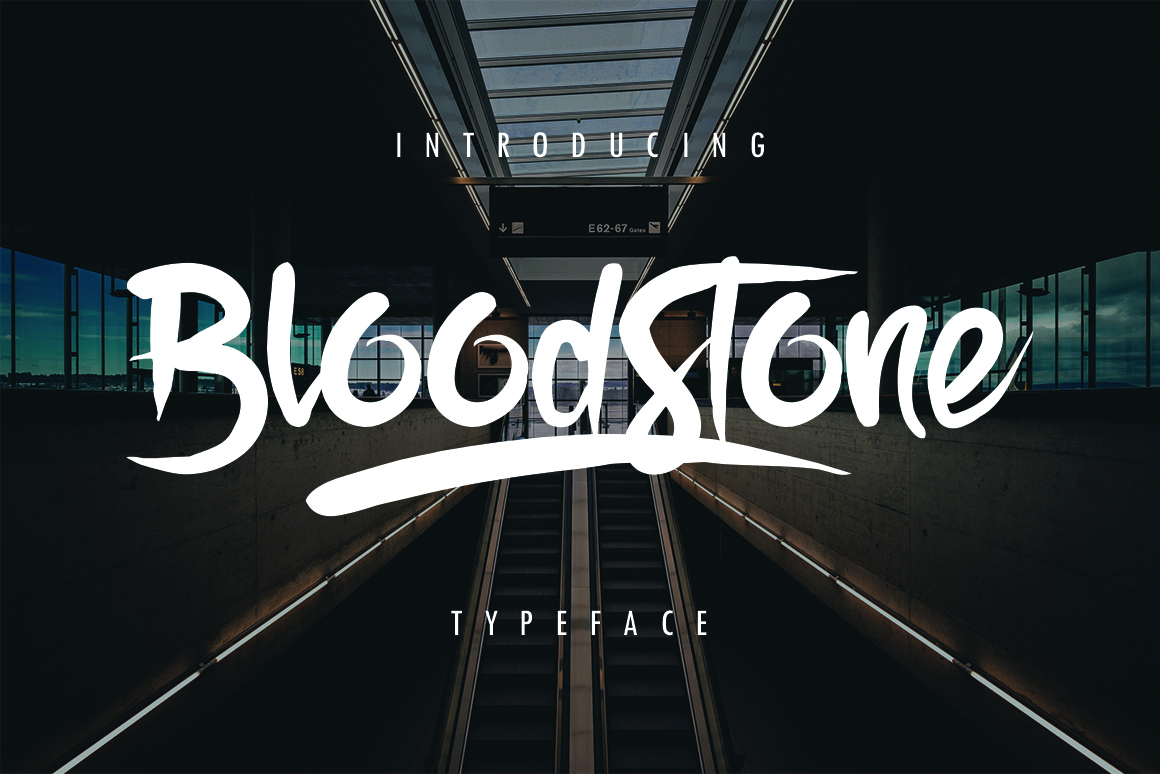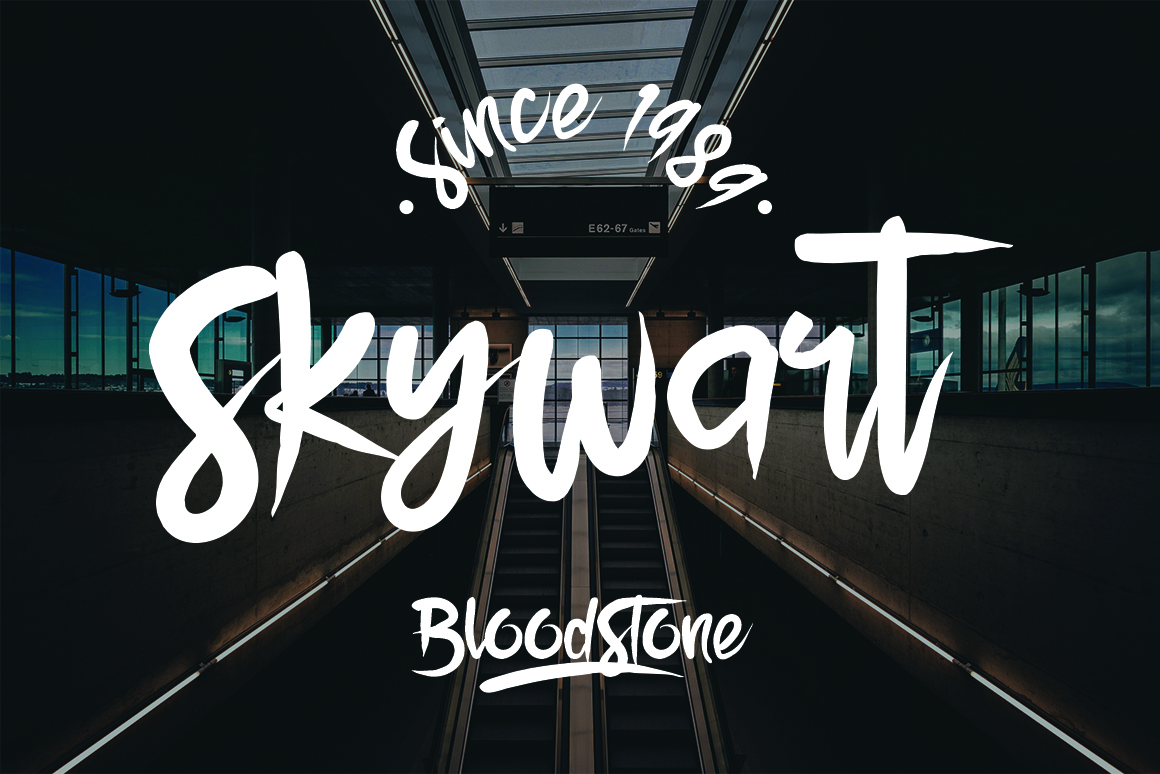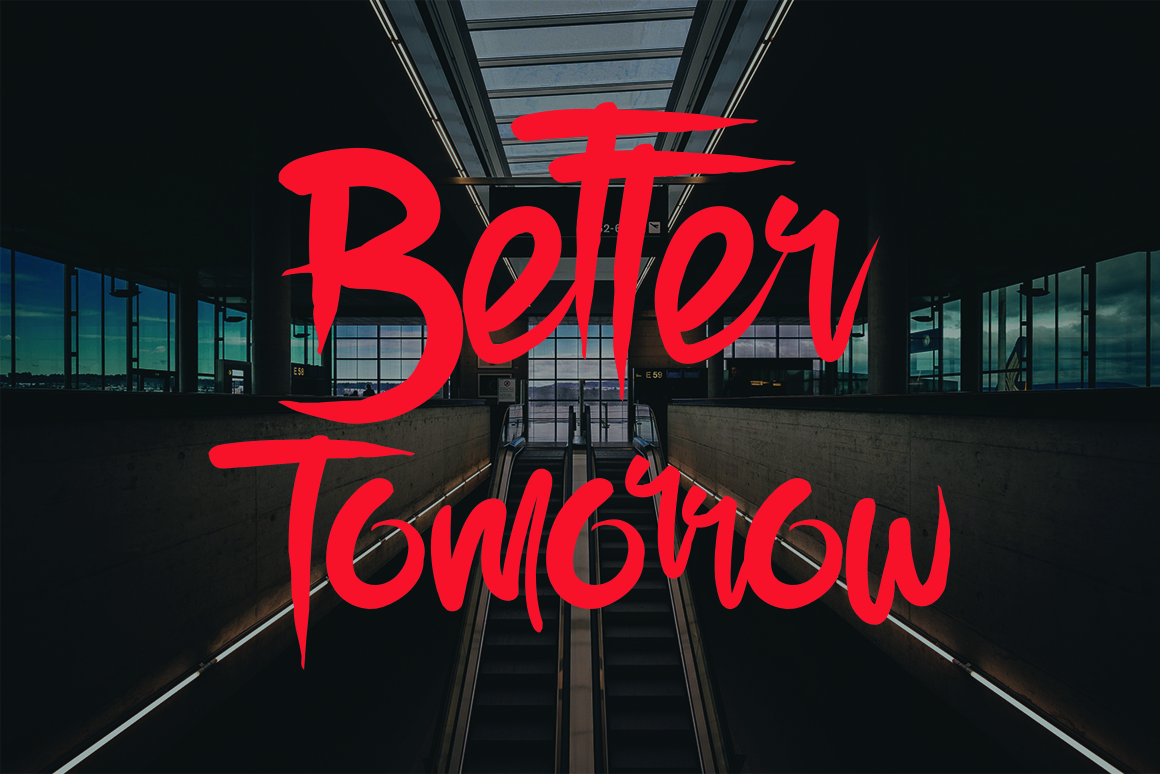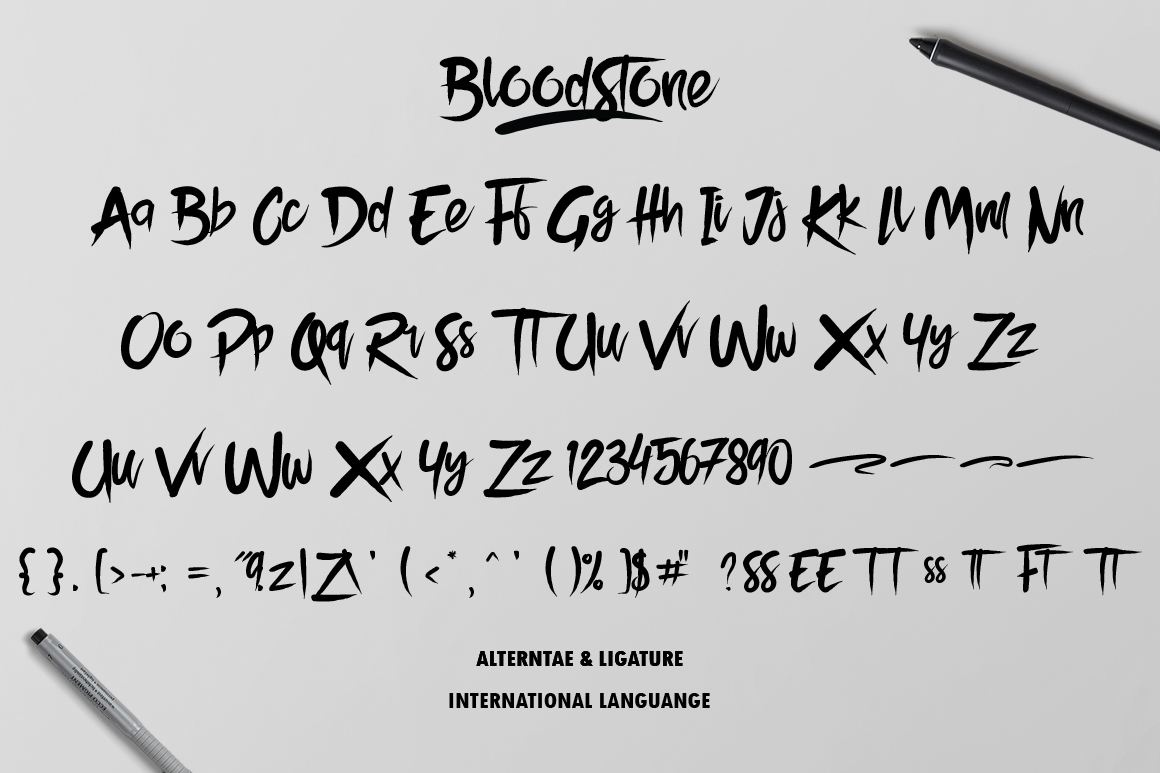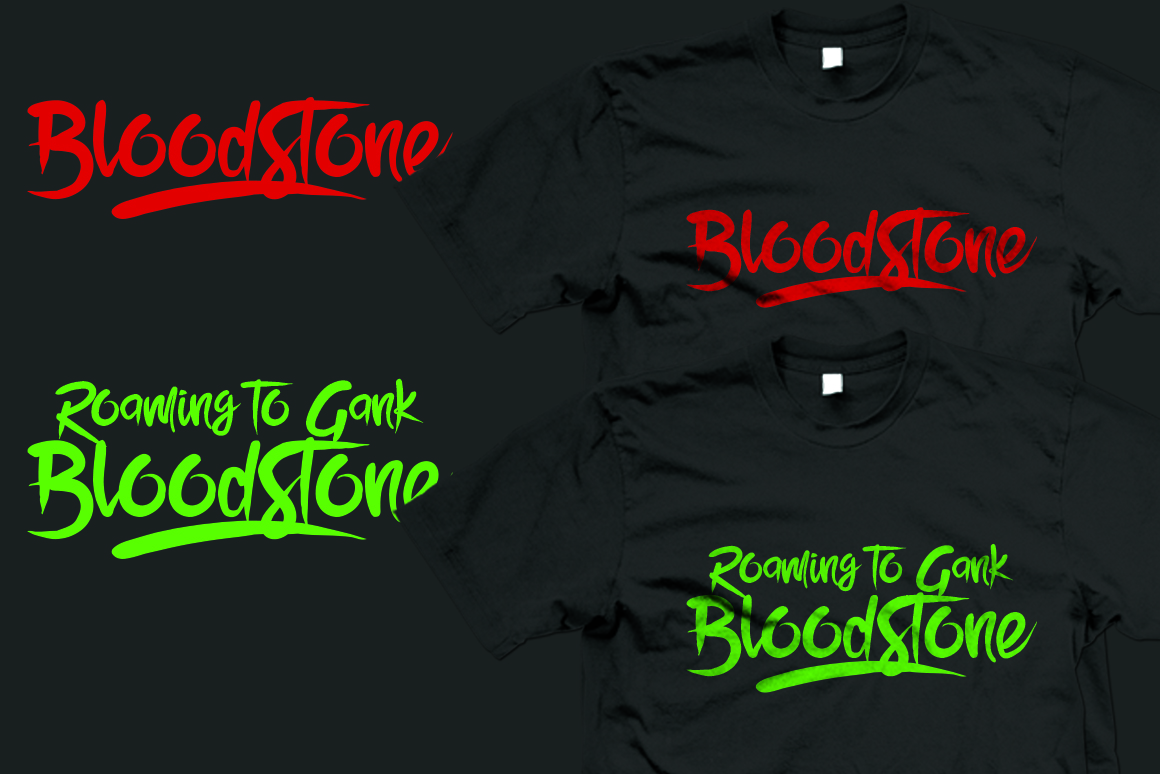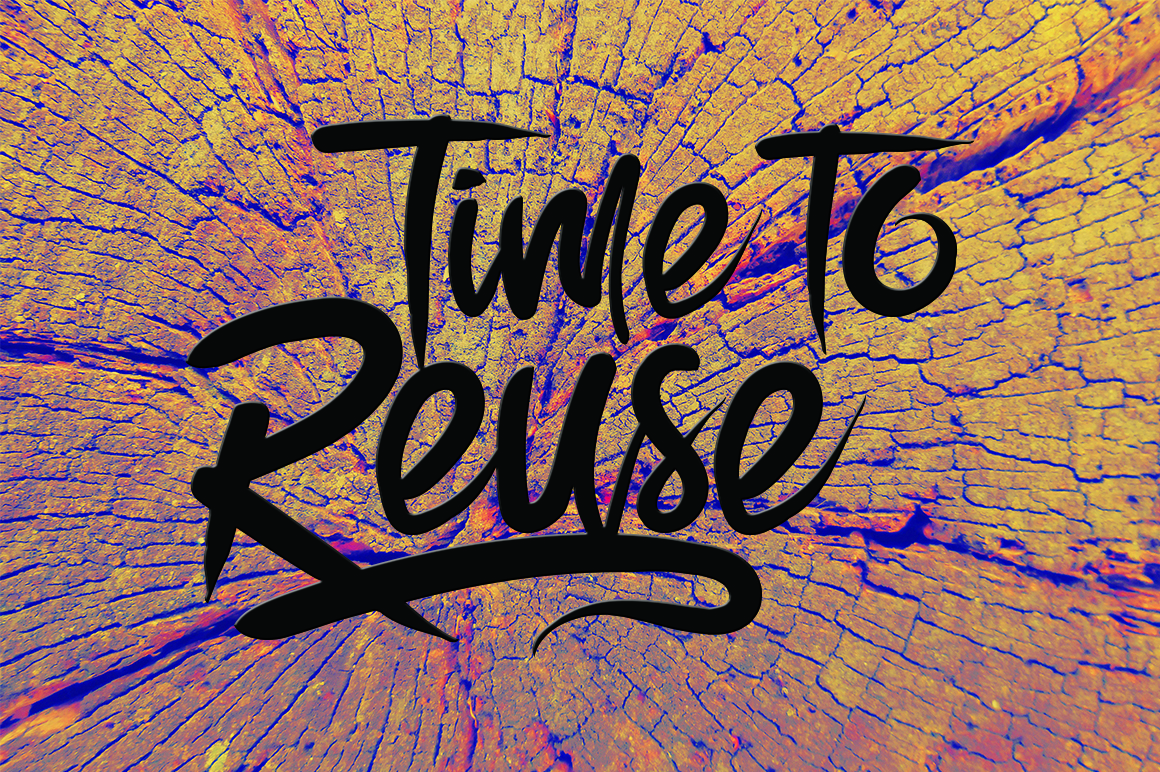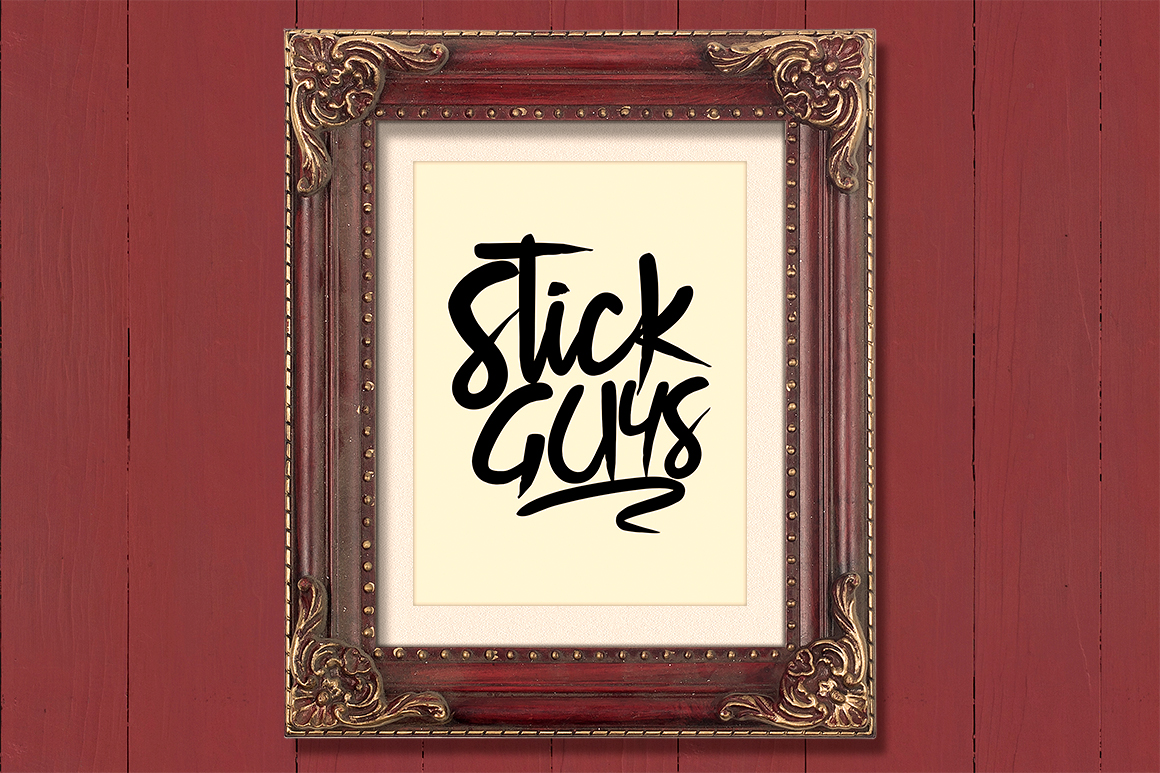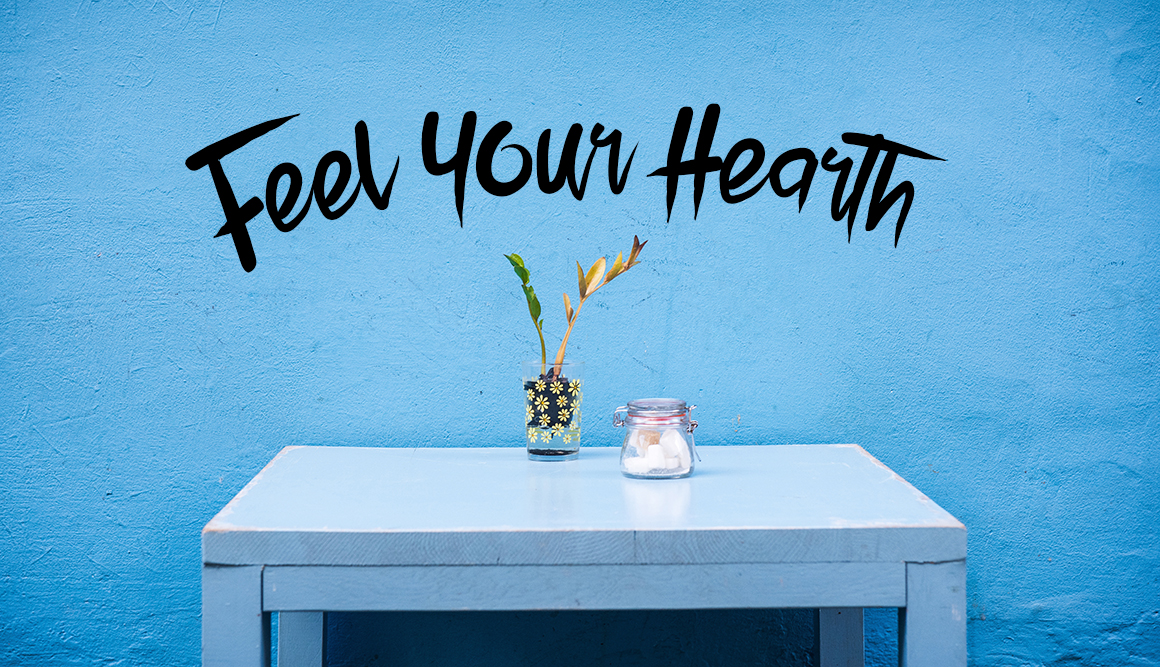
BloodStone Font
About BloodStone Font
BloodStone Typeface is strong, sharp and have a painted look feel. Suitable for digital lettering, branding materials, t-shirt, print, business cards, quotes, logo, poster, t-shirt, nature photography and applicable for any highly stylish design project.